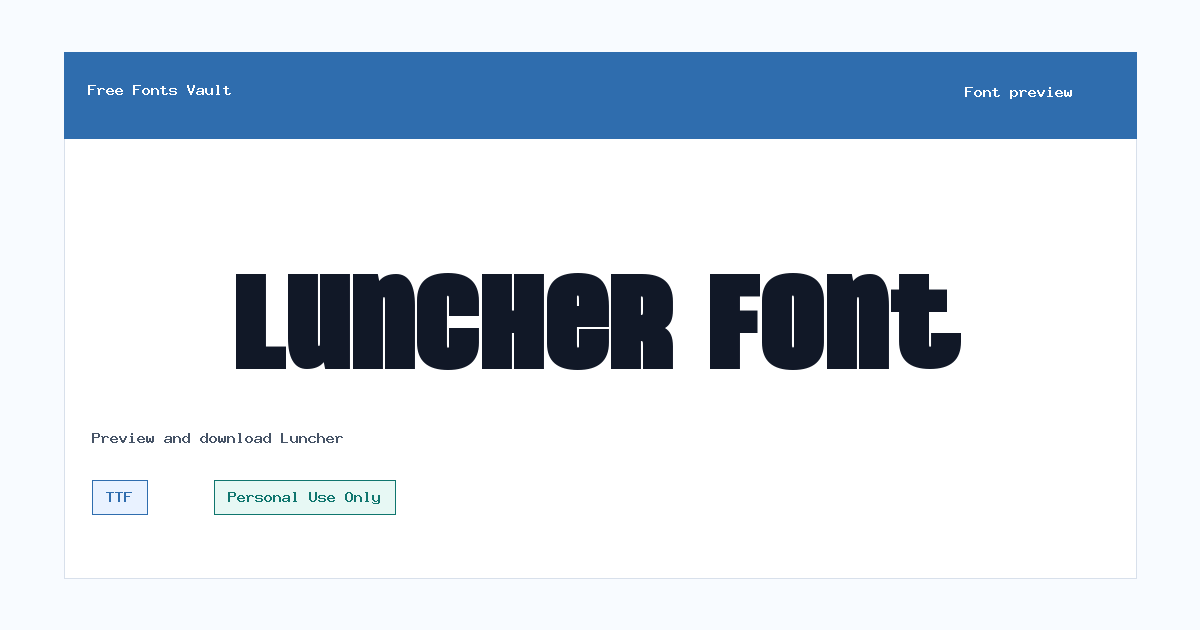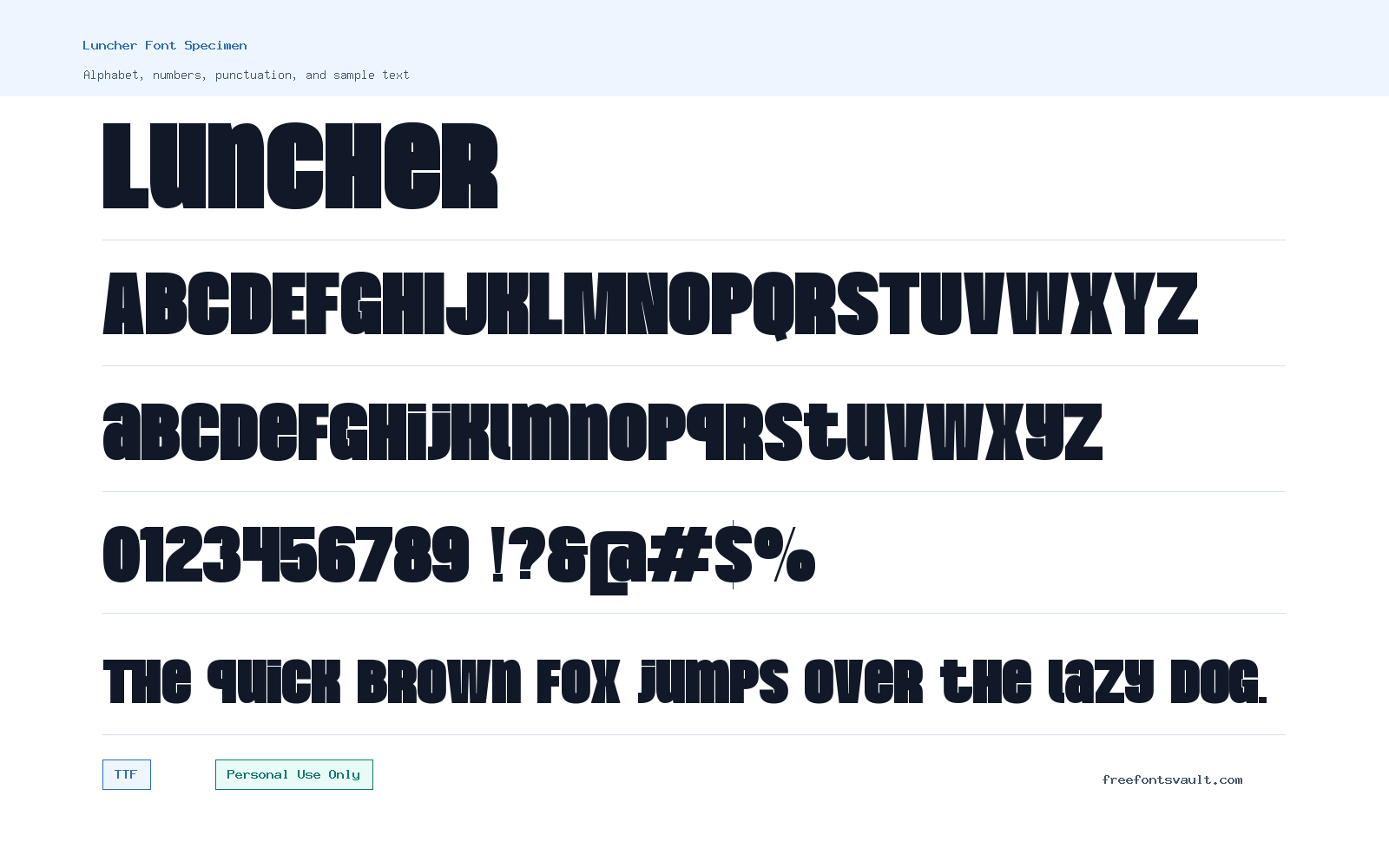
Luncher
Luncher font.
Luncher is a personal-use sans serif font from Funtype Co. with a clean regular style that works well when you want simple, direct lettering for short display text.
About Luncher Font
Luncher is a TTF font family with a regular weight. Its simple sans serif structure makes it easy to test in headings, name designs, posters, social graphics, labels, and quick layout mockups. Because only the regular style is listed, it is best treated as a single-style display or headline option rather than a full text family with bold, italic, or multiple weight choices.
Use Luncher when you need a neat, readable look without heavy ornament. It can suit personal logo drafts, poster titles, web hero mockups, quote cards, presentation covers, and simple branding experiments. For longer paragraphs, test it carefully in the preview at small sizes, since a single regular style may not give enough contrast for full editorial layouts. If you are building a design system, pair it with a more complete text family for body copy, buttons, captions, and UI states.
- Simple sans serif style suited to short headings, personal layouts, mockups, and display text
- Personal poster titles, social graphics, quote cards, and presentation covers
Luncher is credited to Funtype Co. as the designer and foundry.
Who designed Luncher?
Luncher is credited to Funtype Co.
What is Luncher best used for?
It is best for short text such as titles, posters, social graphics, logo concepts, labels, and web mockups where a clean sans serif look is useful.
Is Luncher good for body text?
It may work for short lines, but you should test it at small sizes. For longer reading, pair it with a dedicated body text font.